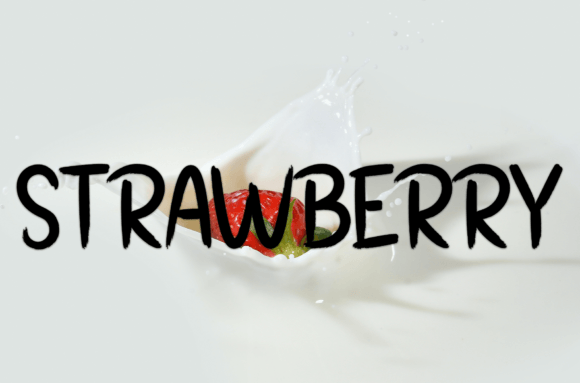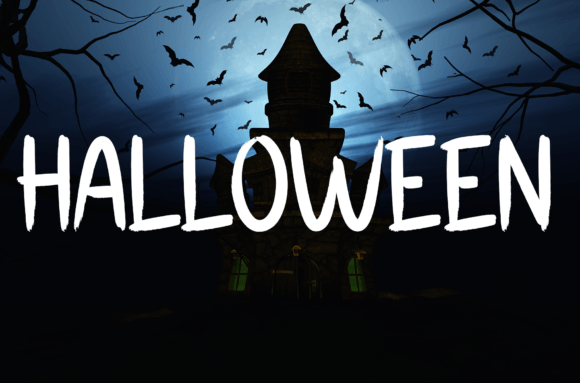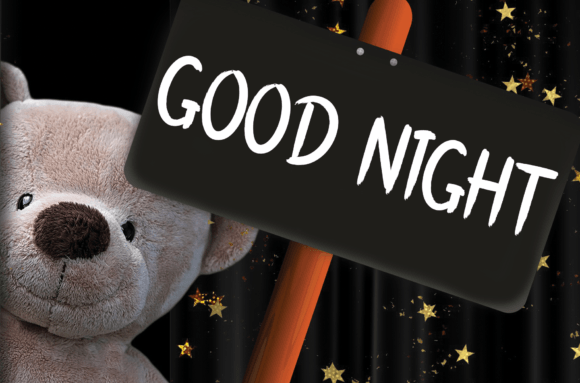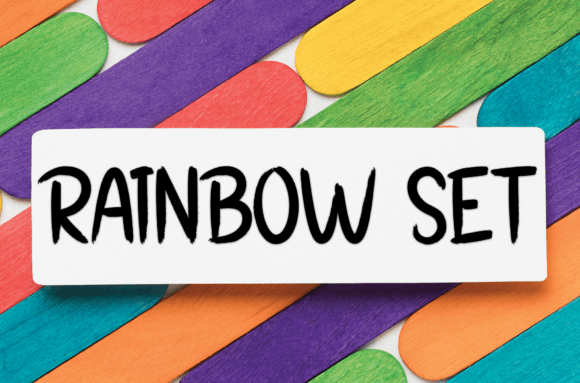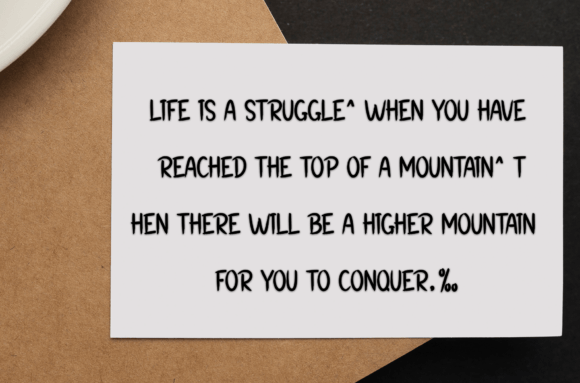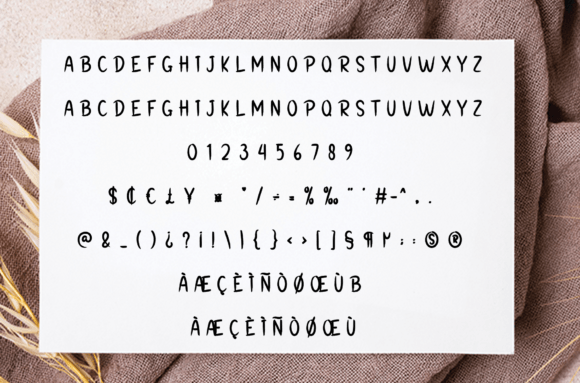
Introducing Black Night Font: Adding a Touch of Whimsy to Your Designs
Are you tired of using the same old fonts in your designs? Look no further than Black Night Font, a cool and friendly handwritten display font that’s sure to add a fun touch to any project. In this article, we’ll dive into the world of Black Night Font, exploring its features, benefits, and uses, as well as provide tips and inspiration for designers and crafters.
What is Black Night Font?
Black Night Font is a creative and versatile handwritten display font that’s perfect for adding a personal touch to your designs. With its unique blend of elegance and playfulness, this font is ideal for writing wedding invitations, cards, or any other design that might need a fun and whimsical touch.
Key Features of Black Night Font
- Handwritten style: Black Night Font boasts a beautiful, handwritten style that’s perfect for adding a personal touch to your designs.
- Display font: This font is designed to make a statement, making it perfect for headings, titles, and other display text.
- Cool and friendly vibe: Black Night Font has a cool and friendly vibe that’s sure to appeal to designers and crafters looking for a font that’s a little bit different.
- Versatile: Whether you’re designing a wedding invitation, a greeting card, or a social media graphic, Black Night Font is versatile enough to adapt to any design style.
Benefits of Using Black Night Font
So why should you choose Black Night Font for your next design project? Here are just a few benefits of using this amazing font:
- Adds a personal touch: Black Night Font’s handwritten style adds a personal touch to your designs, making them feel more approachable and relatable.
- Stand out from the crowd: With its unique blend of elegance and playfulness, Black Night Font is sure to help your designs stand out from the crowd.
- Easy to use: Black Night Font is easy to use and pairs well with a variety of other fonts, making it simple to incorporate into your designs.
- Perfect for creative projects: Whether you’re designing a wedding invitation, a greeting card, or a social media graphic, Black Night Font is perfect for creative projects that require a fun and whimsical touch.
Using Black Night Font in Your Designs
So how can you use Black Night Font in your designs? Here are a few ideas to get you started:
- Wedding invitations: Black Night Font is perfect for writing wedding invitations that need a personal and whimsical touch.
- Greeting cards: Add a fun and playful touch to your greeting cards with Black Night Font.
- Social media graphics: Use Black Night Font to add a personal touch to your social media graphics, such as Facebook posts, Instagram stories, and more.
- Logos and branding: Black Night Font can also be used to create logos and branding materials that need a unique and creative touch.
Tips for Pairing Black Night Font with Other Fonts
Pairing Black Night Font with other fonts can be a great way to add depth and interest to your designs. Here are a few tips for pairing Black Night Font with other fonts:
- Pair with a serif font: Pairing Black Night Font with a serif font, such as Times New Roman or Garamond, can add a touch of elegance to your designs.
- Pair with a sans-serif font: Pairing Black Night Font with a sans-serif font, such as Arial or Helvetica, can add a modern and playful touch to your designs.
- Experiment with font sizes: Don’t be afraid to experiment with different font sizes to create visual interest and hierarchy in your designs.
Black Night Font is a cool and friendly handwritten display font that’s perfect for adding a fun and whimsical touch to your designs. With its unique blend of elegance and playfulness, this font is ideal for writing wedding invitations, cards, or any other design that might need a personal touch. Whether you’re a designer or crafter, Black Night Font is a great addition to your font library.